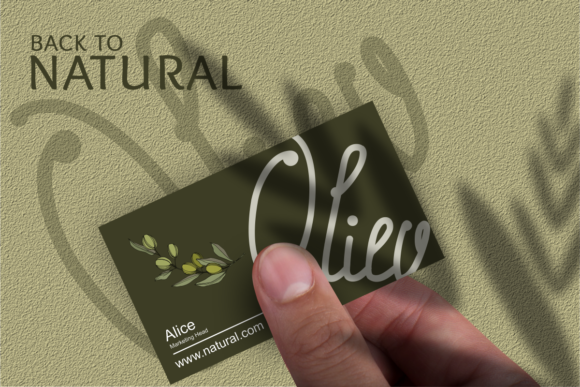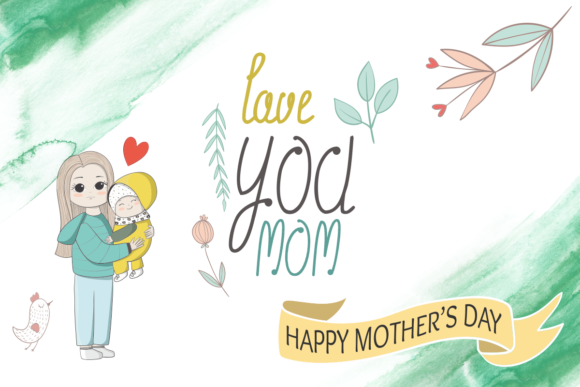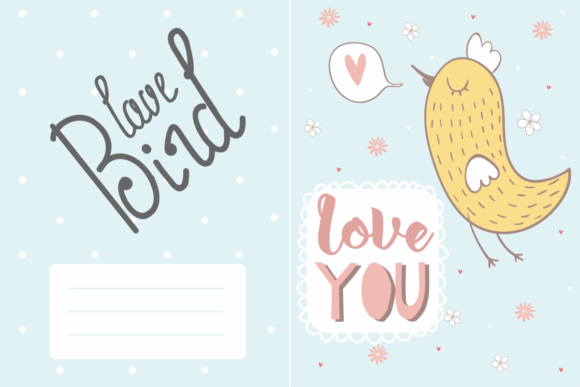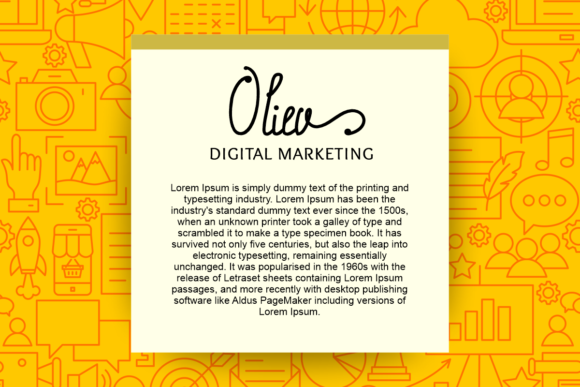
Oliev Oliev Font
About Oliev Oliev Font
Oliev Oliev is a casual and cute handwritten font. Clean and a little bit quirky, its casual charm makes it appear wonderfully down-to-earth, readable and, ultimately, incredibly versatile. This font is the perfect fit for all of your logos, branding, social media, and crafty DIY projects.